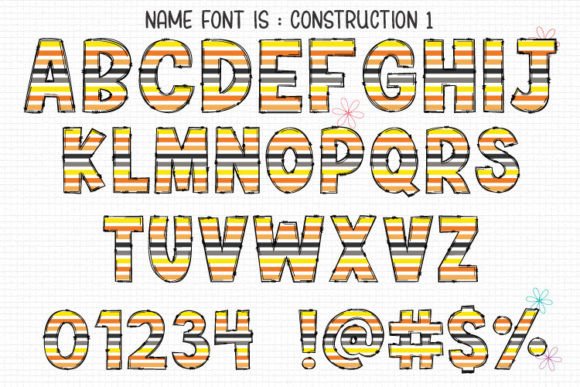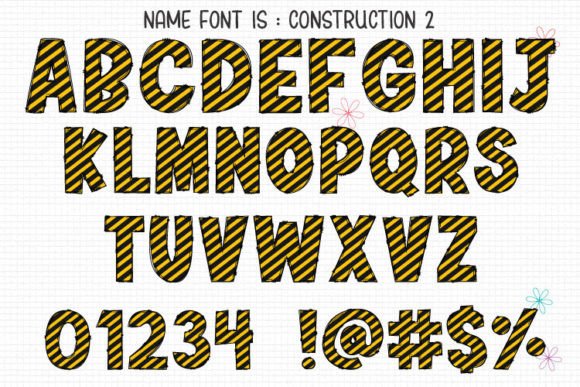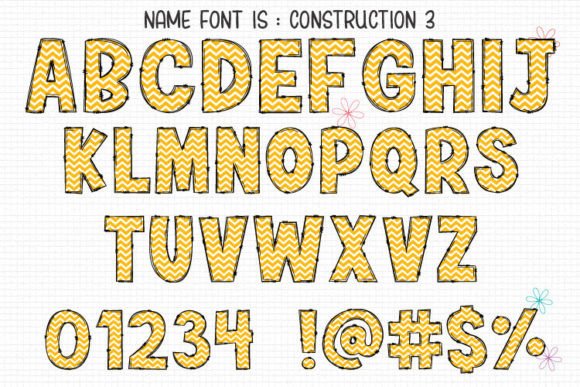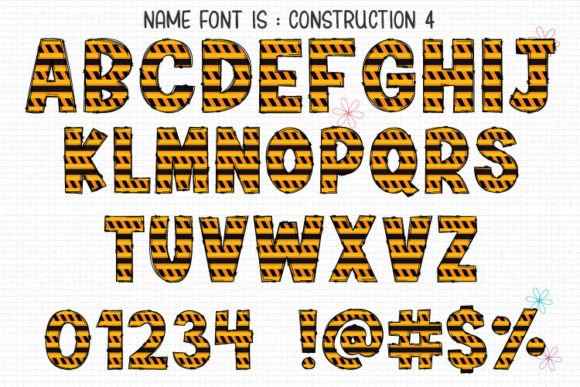
Get Ready to Build Something Beautiful with Construction Font
Do you remember the thrill of creating with construction paper as a child? The endless possibilities of colors, textures, and shapes that came together to form something truly unique and special? That same sense of creativity and playfulness is exactly what the Construction Font embodies.
This charming font bundle is designed to bring a touch of whimsy and fun to your designs. Perfect for children’s books, posters, invitations, greeting cards, and more, Construction Font is a valuable addition to any designer’s toolkit. With its black version compatible with Cricut Design Space and other cutting machines, you can easily bring your creations to life. The color version, on the other hand, is a treasure trove of creative possibilities, compatible with design programs like PhotoShop, Illustrator, and Silhouette.
Key Features of Construction Font
- Character Count: The font contains a wide range of characters, including Latin, Cyrillic, and Greek alphabets, with over 1,200 glyphs.
- Unique Characteristics: Construction Font features a unique, distressed design with a mix of bold and rough textures, perfect for construction, industrial, and urban-themed projects.
- Font Style: Construction Font comes in three different styles: Regular, Bold, and Outline, offering flexibility for various design applications.
Construction Font Review
Overall, I think Construction Font is a decent choice for its intended purpose, which is to evoke a sense of ruggedness and industrialism. ✨ Here are some of its strengths:
- Unique letterforms: The font’s distinctive, geometric shapes make it stand out from more traditional fonts.
- Rugged feel: The font’s rough edges and irregularities give it a convincingly industrial look.
- Good for headlines: The font’s bold, eye-catching style makes it well-suited for headlines and titles.
However, I do have some reservations about Construction Font. ⚠️ Here are some of its limitations:
- Limited legibility: The font’s irregularities can make it difficult to read at smaller sizes or in complex text.
- No subtlety: The font’s bold, in-your-face style can be overwhelming in some contexts.
- Limited font weights: The font only comes in a few weights, which can limit its versatility.
Overall, I think Construction Font is a solid choice for designers looking to add some grit and industrialism to their work. However, it’s not a one-size-fits-all solution, and you’ll need to carefully consider whether its unique style will work for your project.
Tips: Use Construction Font for headings and titles to add a rugged touch to your designs.
Tips: Use Construction Font for text overlays and graphics to add a industrial feel to your designs.
Tips: Use Construction Font for headings and titles to add a bold and industrial touch to your presentations and documents.
Construction Font is perfect for:
- Industrial and construction-themed designs.
- Rugged and bold typography.
- Adding a touch of industrial chic to your designs.